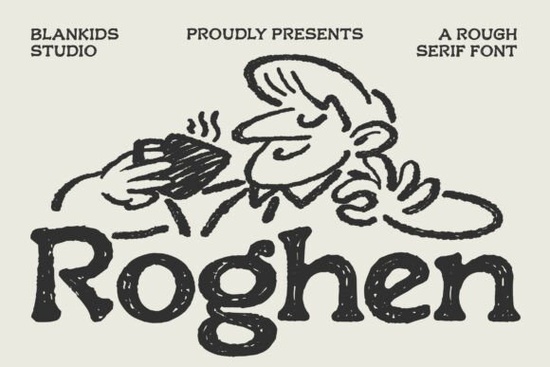
If you're looking for a display font that blends vintage charm with modern boldness, Roghen Font might be exactly what your next project needs. Designed with hand-drawn inspiration and a rough serif structure, Roghen brings an organic, slightly imperfect texture that feels both warm and intentional ideal for creatives who want their typography to carry personality without sacrificing readability.
What makes Roghen stand out from other serif fonts?
Unlike clean, geometric serifs often used in corporate branding, Roghen leans into its handmade roots. Its letterforms feature subtle irregularities slight wobbles, uneven strokes, and gentle wear that mimic the look of ink on aged paper or screen-printed posters. Yet it maintains strong structural integrity, so headlines remain legible even at smaller sizes.
This balance is especially useful if you’re designing for:
- Lifestyle or artisanal product packaging
- Festival or pop-up event posters
- Social media quotes or promotional graphics
- Editorial feature headlines
- Print-on-demand apparel with typographic focus
The result? A font that feels nostalgic but not dated, bold but not harsh perfect for brands aiming for authenticity over polish.
How does Roghen compare to other textured serifs?
If you’ve explored Creative Fabrica’s serif collection, you might also come across fonts like Huntro, which offers a smoother, more refined retro elegance. Huntro works beautifully for luxury or heritage-focused designs, while Roghen leans into grit and playfulness. Think of Roghen as the friendly neighborhood coffee shop with chalkboard signs versus the upscale boutique with embossed stationery.
Both have merit it just depends on the mood you’re trying to set. For projects needing warmth, approachability, and a touch of rebellion, Roghen’s rough edges add visual interest without overwhelming your layout.
Can small businesses actually use this effectively?
Absolutely. One reason Roghen works well for solopreneurs and small studios is its versatility within a narrow stylistic lane. You don’t need multiple weights or styles to make an impact its single bold weight carries enough presence for logos, signage, or hero text.
For example:
- A bakery could use Roghen on a chalk-style menu board graphic for Instagram.
- A craft fair vendor might feature it on product tags or tote bags.
- A podcast host could use it in episode title cards for a consistent, recognizable look.
Because it’s a display font, it’s best reserved for short phrases or headlines not body copy. But within those limits, it delivers strong visual identity with minimal effort.
Does it pair well with other fonts?
Yes. Roghen’s distinctive texture means it pairs best with clean, neutral sans-serifs or simple geometric fonts. Avoid pairing it with another highly decorative typeface this can create visual competition.
Good companions include:
- Minimalist sans-serifs like Montserrat or Lato (for contrast)
- Narrow, modern fonts for subheadings
- Even basic system fonts like Arial or Helvetica when simplicity is key
The goal is to let Roghen shine as the focal point while supporting text stays unobtrusive.
When used thoughtfully, Roghen adds character without chaos a rare win for designers who want their work to feel human, not algorithmically perfect.